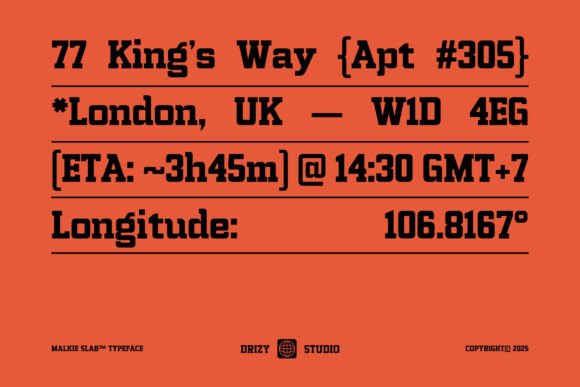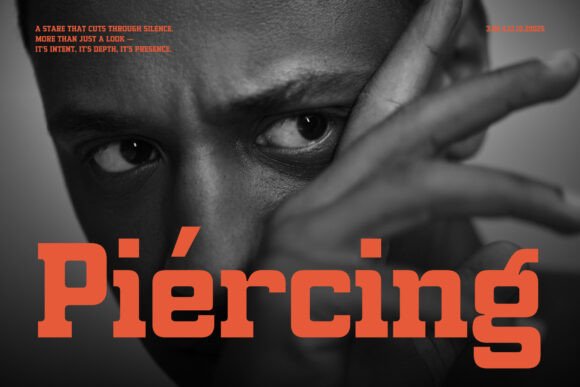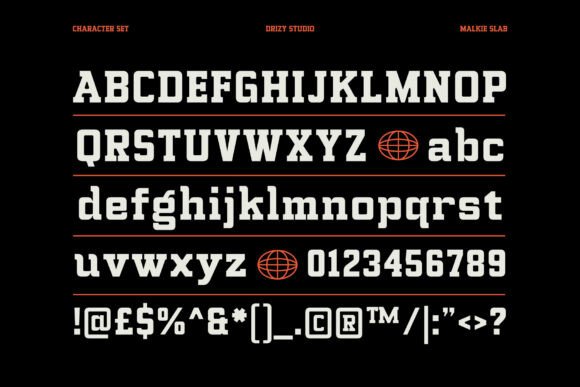
Introduction to Malkie Slab Font
Malkie Slab is a striking and modern typeface that stands at the intersection of boldness and innovation.
This Square Slab Serif font exudes an edgy, futuristic vibe, making it ideal for contemporary designs that demand attention With its sharp, geometric lines and robust, sturdy serifs, Malkie Slab brings a sense of power and structure to any project.